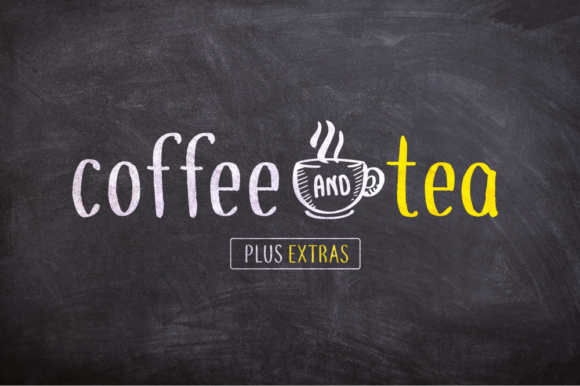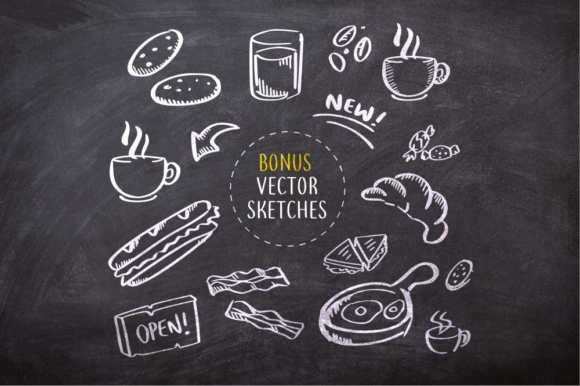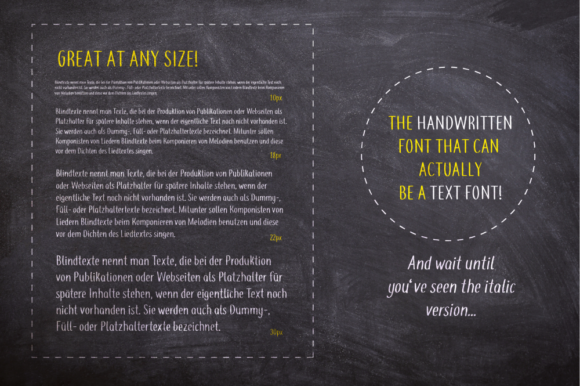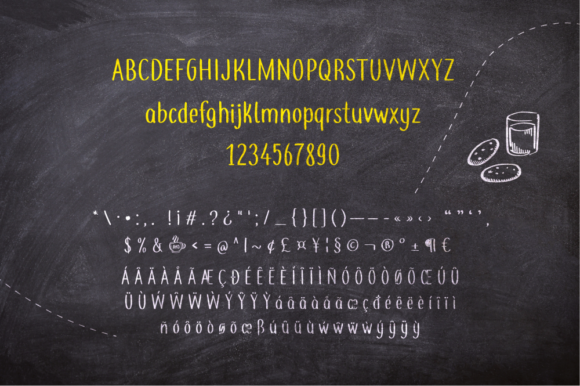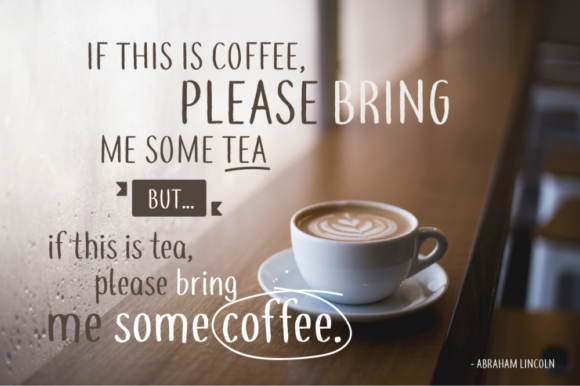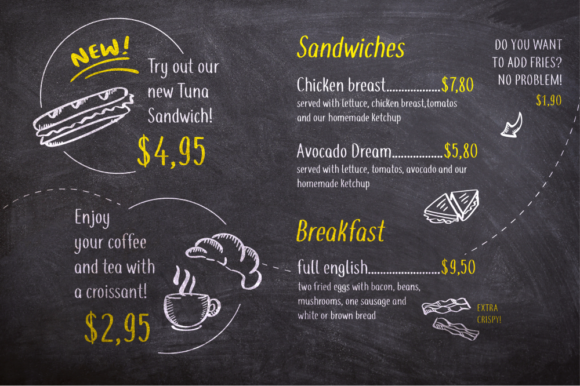
Coffee and Tea Font
About Coffee and Tea Font
Coffee and Tea is a simple and natural handwritten font. It has a clean, thin and smooth vibe and it will be a hit for any design that you want to add it to.